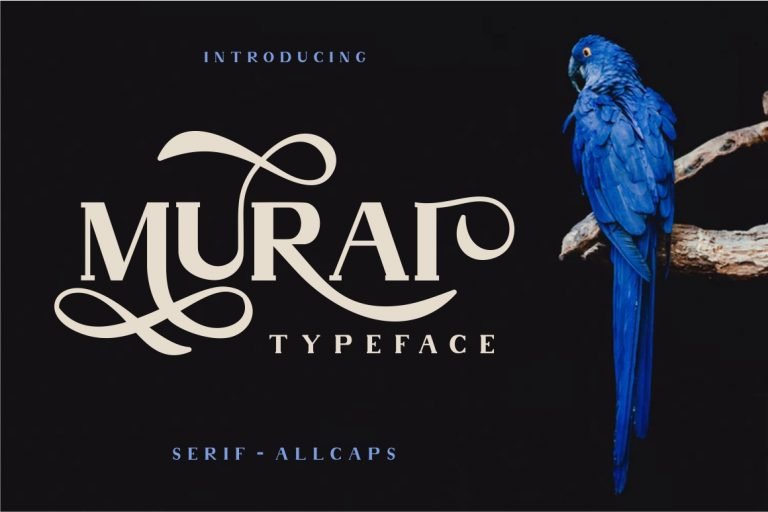
Murai Typeface
Hi designer! I am happy to introduce you to a display font. Introducing Murai Font! Murai designed by PutraCetol Studio. Murai is an classic and elegant display typeface. Allcaps characters, with lots of alternatives, so you can combine according to your creativity. Murai available in Regular and Bold Version. Suitable for logos, Tshirt,handwritten quotes, product packaging, tittle header, poster, merchandise, social media, labels, branding & greeting cards.